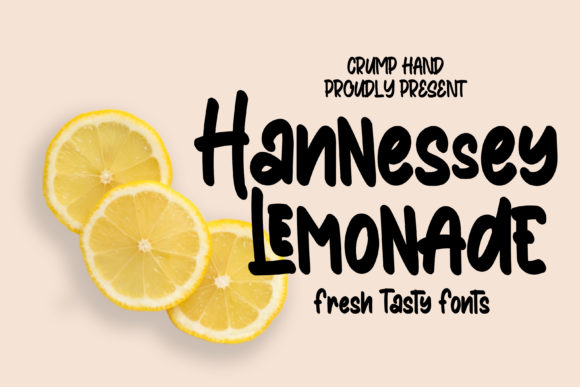
Finding a typeface that captures the essence of summer while maintaining professional versatility is a challenge for many designers. Hannessy Lemonade is a fresh and tasty display font with a summery vibe that brings immediate energy to creative projects. Whether you are searching for a Hannessy Lemonade free download for a personal craft project or evaluating it for a client brief, this typeface offers a unique funky feel that stands out in the crowded typography market. As a premium Display font option that remains accessible, it bridges the gap between playful hand-lettering and structured commercial design, making it a valuable asset for modern branding.
Introduction to Hannessy Lemonade Typography
Hannessy Lemonade is not just another decorative script; it is a carefully crafted tool for visual storytelling. In the realm of Display fonts, readability at large sizes is paramount, and this typeface excels by balancing whimsical curves with solid structural integrity. Designers often seek a Hannessy Lemonade font download because it avoids the overly distressed look common in similar genres, offering instead a clean yet organic aesthetic. This balance makes it suitable for everything from artisanal product labels to vibrant social media graphics. Its distinct character set includes alternates and ligatures that allow for customization, ensuring that no two designs look exactly alike even when using the same base letterforms.
Design and Style Analysis
The visual personality of Hannessy Lemonade is rooted in retro nostalgia mixed with contemporary freshness. It features high-contrast strokes that mimic brush pen movements but with the precision of digital vector art. When analyzing its weight distribution, one notices a deliberate unevenness that adds human warmth without sacrificing legibility. The spacing is generous, preventing the letters from feeling cramped when used in all-caps or title case settings. Compared to other free Display font for Fonts options, Hannessy Lemonade maintains a consistent baseline that makes alignment significantly easier during the layout phase. This technical refinement is what elevates it from a novelty item to a reliable professional Fonts font choice for serious designers.
Letterform Characteristics and Mood
The mood evoked by this typeface is undeniably optimistic. Rounded terminals and open counters contribute to an inviting atmosphere, making it ideal for brands targeting younger demographics or lifestyle markets. Unlike rigid geometric sans-serifs, the organic flow of Hannessy Lemonade suggests movement and vitality. This inherent dynamism is why it performs so well in static imagery where motion needs to be implied through typography alone.
Best Uses for Hannessy Lemonade
Hannessy Lemonade for Logo Design and Branding
Creating a memorable brand identity requires a typeface with enough character to be recognizable yet simple enough to scale. Hannessy Lemonade for logo design works exceptionally well for food and beverage companies, summer festivals, and children’s products. Its distinctive silhouette ensures that logos remain legible even when reduced to favicon size. For broader Hannessy Lemonade for branding initiatives, consider using it as the primary wordmark while pairing it with a neutral secondary font for taglines and contact information.
Hannessy Lemonade for Wedding Invitations and Cards
The wedding industry demands typography that feels personal and elegant without being stuffy. Hannessy Lemonade for wedding invitations/cards/typography offers a relaxed alternative to traditional formal scripts. It pairs beautifully with minimalist layouts, adding a touch of joy to save-the-dates and reception signage. Because it avoids excessive swashes, it remains readable for older guests while still appealing to modern couples seeking a non-traditional aesthetic.
Hannessy Lemonade for Posters and Social Media
In the fast-scrolling environment of digital marketing, grabbing attention within milliseconds is crucial. Hannessy Lemonade for posters/social media/packaging delivers the necessary visual punch. Its bold presence ensures that key messages stand out against busy photographic backgrounds. Merchandise designers also favor this font for t-shirts and tote bags because its summery vibe translates perfectly to print-on-demand products that sell year-round.
Font Pairing and Combinations
A common question among designers is what fonts pair well with Hannessy Lemonade to create a cohesive hierarchy. The key is contrast; since Hannessy Lemonade has significant personality, its partner should be understated and highly legible. A clean geometric sans-serif like Montserrat or Poppins provides excellent stability against the font's organic curves. Alternatively, a classic serif such as Playfair Display can add a touch of sophistication for more upscale applications. Effective Hannessy Lemonade font pairing relies on letting the display face do the heavy lifting while the supporting typeface handles body copy and functional text. Avoid pairing it with other decorative fonts, as this creates visual competition and reduces overall readability.